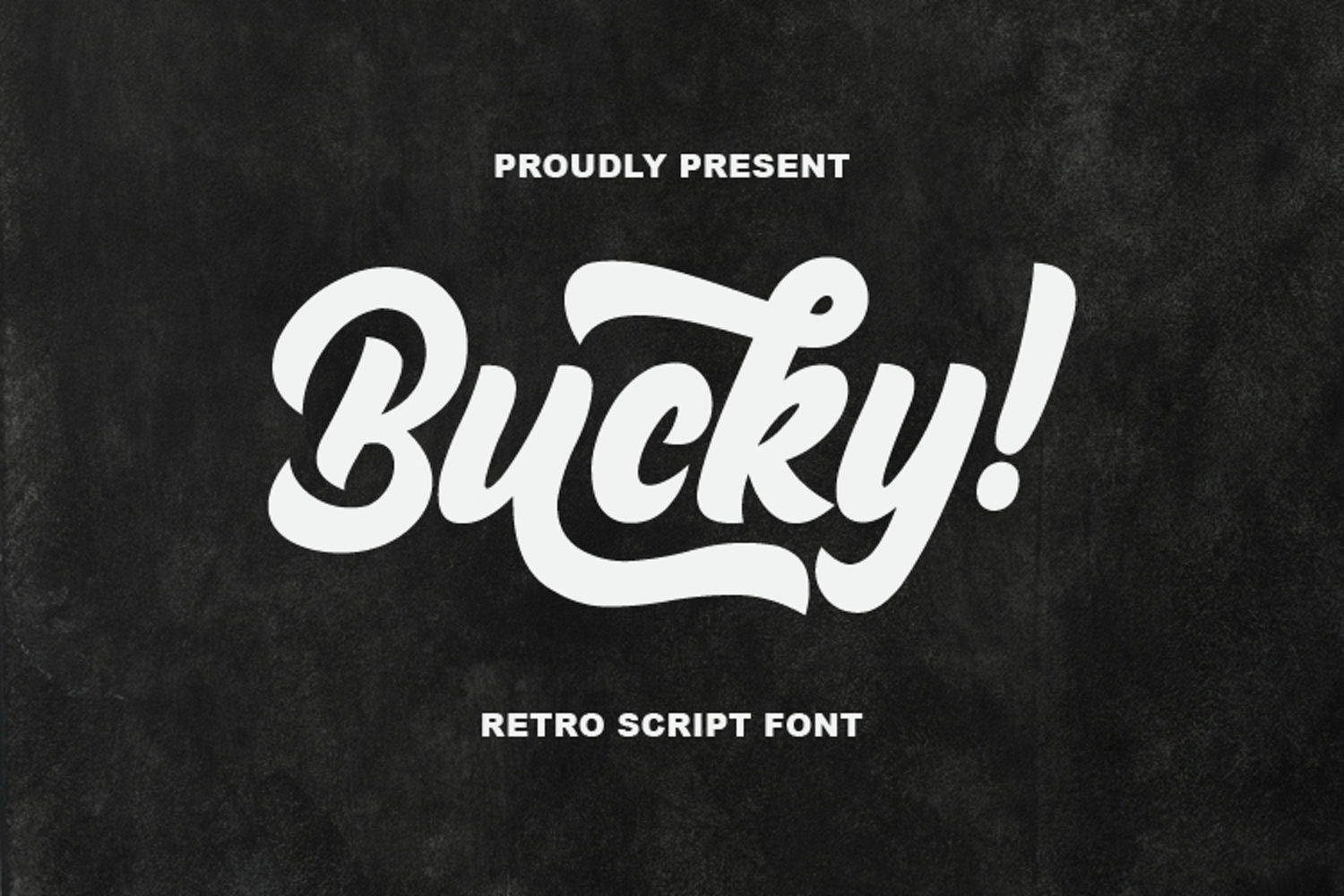
Bucky!
Bucky – Retro Script Font
Bucky is a bold and expressive retro script font inspired by classic vintage lettering and old-school signage. Designed with smooth curves, dynamic strokes, and stylish swashes, this typeface brings a nostalgic yet modern touch to any design.
With its handcrafted feel and strong personality, Bucky is perfect for creating eye-catching headlines, logos, branding, posters, packaging, and apparel designs. The font features beautiful alternates and stylistic variations, allowing you to easily customize your typography and achieve a more authentic, flowing look.
Whether you're aiming for a retro aesthetic or a trendy vintage vibe, Bucky delivers charm, readability, and versatility in every letter.
• Smooth script with retro style
• Stylistic alternates for unique lettering
• Perfect for logos, branding, and headlines
• Clean and highly readable design
Bring your designs to life with the timeless style of Bucky.